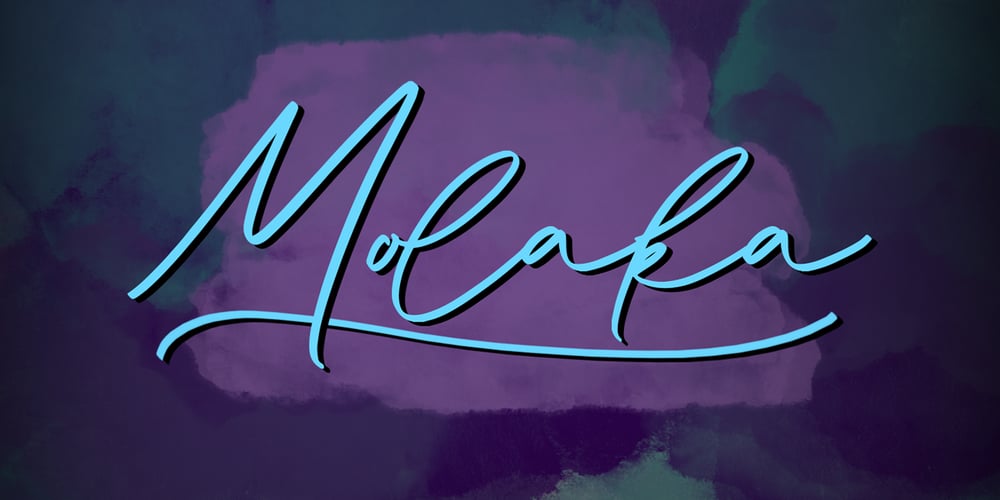
Molaka
Molaka font
Molaka Font Family was designed by Gilang Maulana and published by Maulana Creative. Molaka contains 1 styles and family package options. Molaka Modern Script Font consisting of a fashionable sophisticated signature-style script with it’s own unique curves and an elegant inky flow.Molaka Modern Script Font is perfect for branding projects, logo, wedding designs, social media posts, advertisements, product packaging, product designs, label, photography, watermark, invitation, stationery and any projects that need handwriting taste.Thanks for use this font,MaulanaCreative